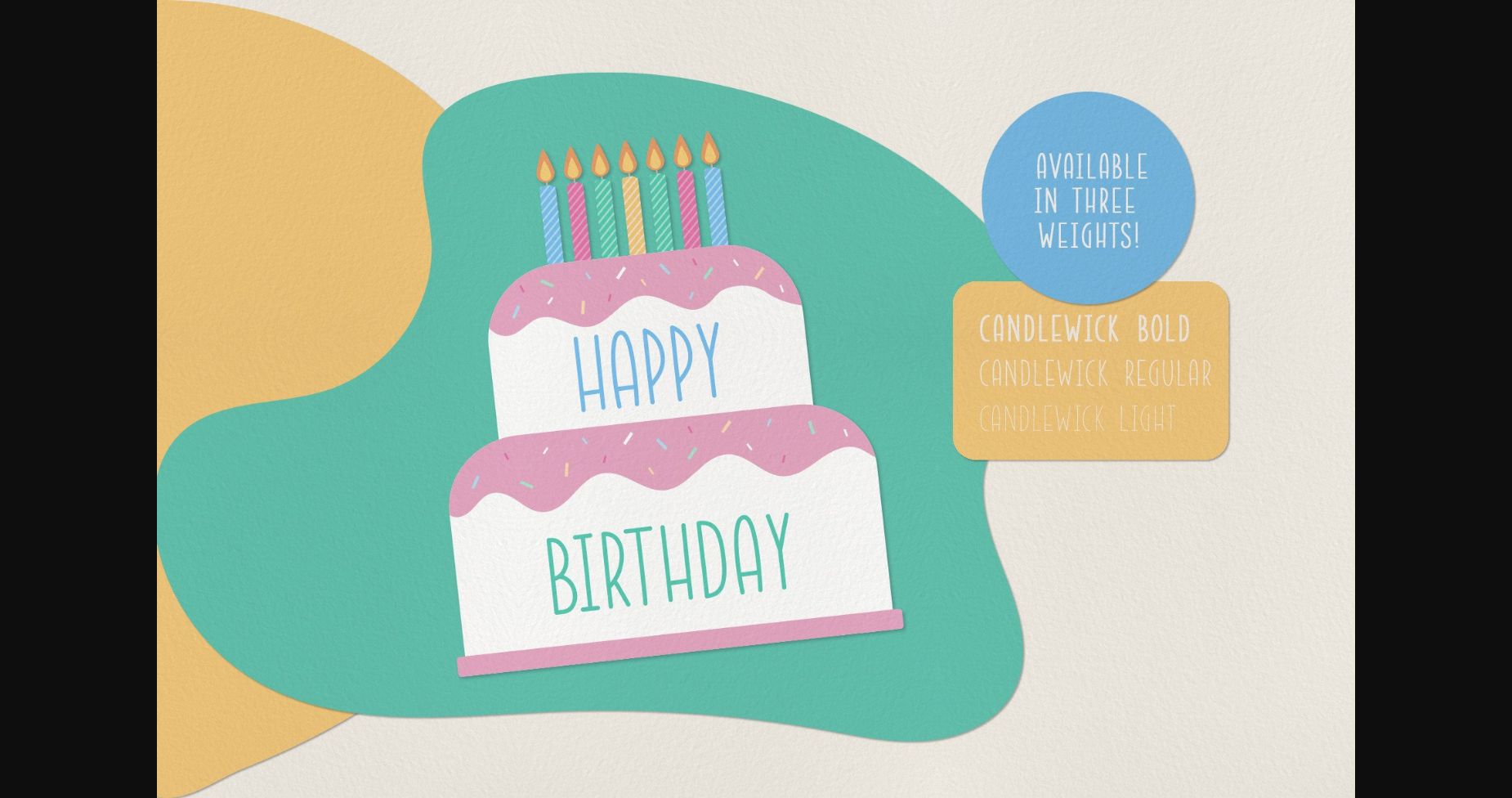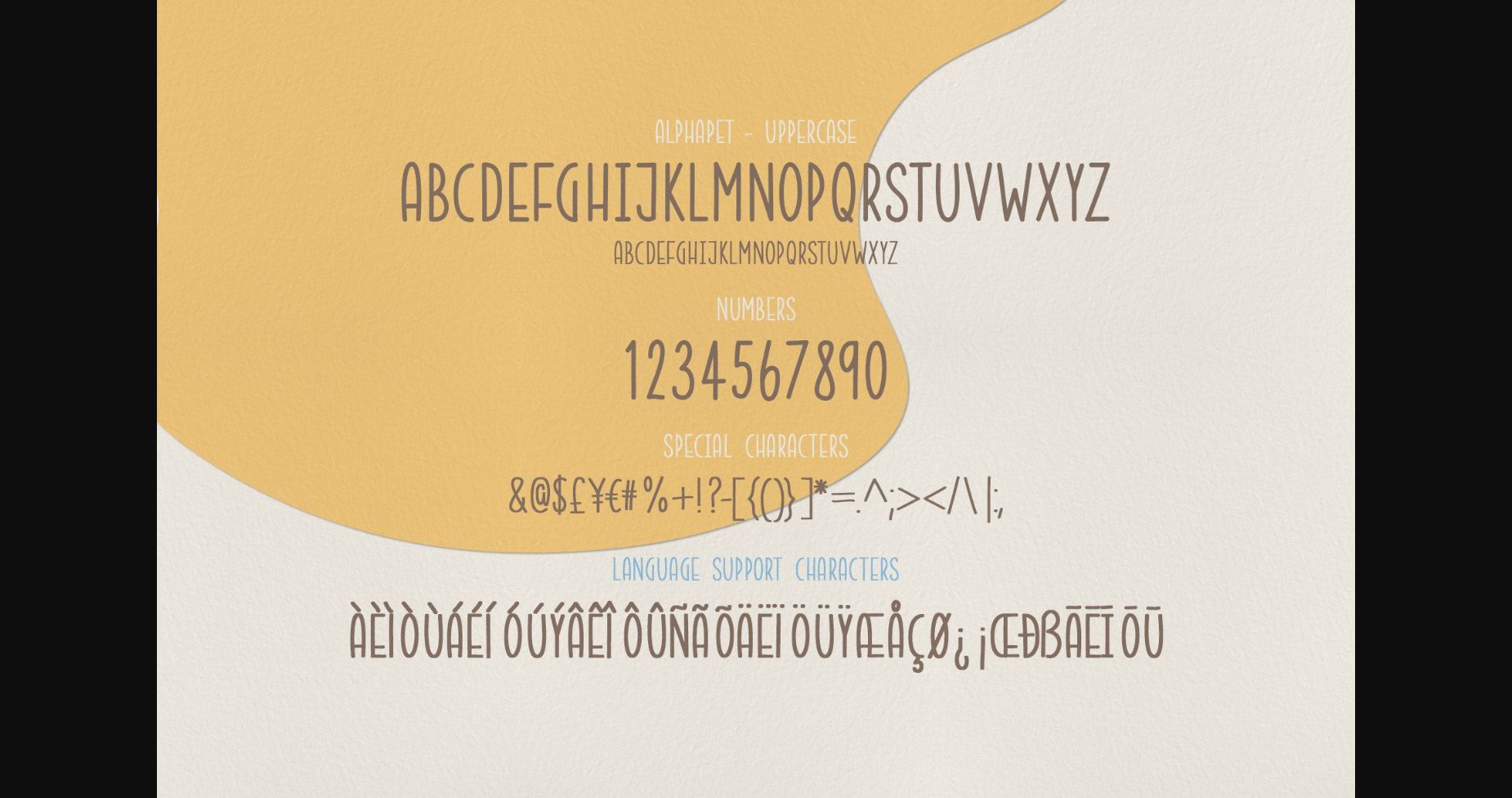
About Candlewick Font
Candlewick is a cute hand-drawn sans serif font available in three weights. Ideal for use in logos and branding, labels and greeting cards, apparel and merchandise, or anything that needs a natural, fun vibe.
You can also use the illustrations, separators, icons, and speech bubbles included. These are to help with building logos or stationery designs.